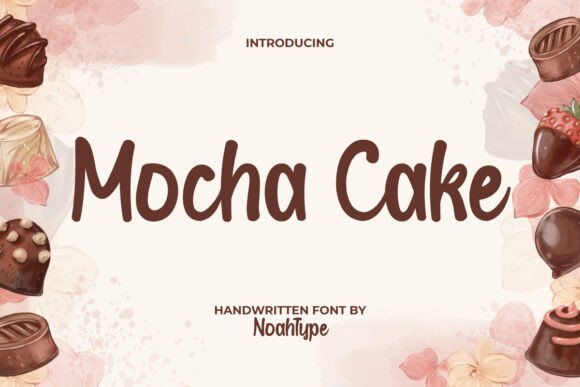
Introducing Mocha Cake Font: The Sweetest Handwritten Font for Your Design Needs
Are you looking for a font that can add a touch of warmth and personality to your designs? Look no further than Mocha Cake Font, a delightful handwritten font inspired by the world of food trucks and family restaurants. With its unique blend of playfulness and sophistication, this font is perfect for creating designs that are both visually appealing and engaging.
What Makes Mocha Cake Font So Special?
Mocha Cake Font is a carefully crafted handwritten font that is designed to evoke the feeling of sweet treats and warm memories. The thickness of the lines in this font is perfectly balanced, making it ideal for creating designs that resemble diary writing with neat and sweet handwriting. Whether you’re looking to create a logo, advertisement, or social media post, Mocha Cake Font is the perfect choice.
One of the standout features of Mocha Cake Font is its versatility. This font is suitable for a wide range of industries, including:
- Advertisement: Create eye-catching ads that grab attention with Mocha Cake Font.
- Bakery and Pastry: Add a touch of sweetness to your bakery or pastry shop’s branding with this delightful font.
- Café: Create menus, flyers, and other marketing materials that showcase your café’s personality with Mocha Cake Font.
- Event or Festival: Use Mocha Cake Font to create promotional materials for your event or festival that are both fun and engaging.
- Florist: Add a touch of elegance to your florist shop’s branding with this beautiful handwritten font.
- Printing: Use Mocha Cake Font to create stunning prints that showcase your business’s personality.
- Publishing: Create book covers, titles, and other design elements that stand out with Mocha Cake Font.
- Stationery: Add a personal touch to your stationery with this charming handwritten font.
The Benefits of Using Mocha Cake Font
So why choose Mocha Cake Font for your design needs? Here are just a few benefits of using this amazing font:
- Unique and Eye-Catching: Mocha Cake Font is a one-of-a-kind font that is sure to grab attention and make your designs stand out.
- Versatile: This font is suitable for a wide range of industries and design applications.
- Easy to Read: The thickness of the lines in Mocha Cake Font makes it easy to read, even at small sizes.
- Customizable: Mocha Cake Font can be customized to fit your brand’s unique style and personality.
How to Use Mocha Cake Font in Your Designs
Using Mocha Cake Font in your designs is easy! Here are a few tips to get you started:
- Pair it with Other Fonts: Mocha Cake Font pairs well with other fonts, such as sans-serif fonts like Arial or Helvetica.
- Use it for Headings: Mocha Cake Font is perfect for headings and titles, adding a touch of personality to your designs.
- Add it to Your Brand Kit: Make Mocha Cake Font a part of your brand kit to ensure consistency across all of your designs.
- What is Mocha Cake Font? Mocha Cake Font is a handwritten font inspired by food trucks and family restaurants.
- What industries is Mocha Cake Font suitable for? Mocha Cake Font is suitable for a wide range of industries, including advertisement, bakery and pastry, café, event or festival, florist, printing, publishing, and stationery.
- Can I customize Mocha Cake Font? Yes, Mocha Cake Font can be customized to fit your brand’s unique style and personality.